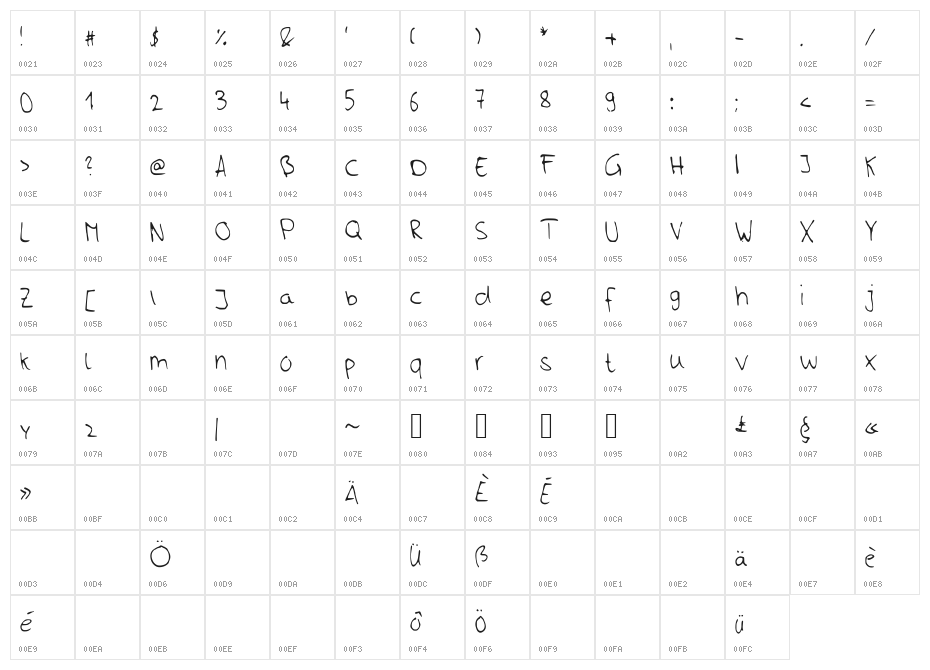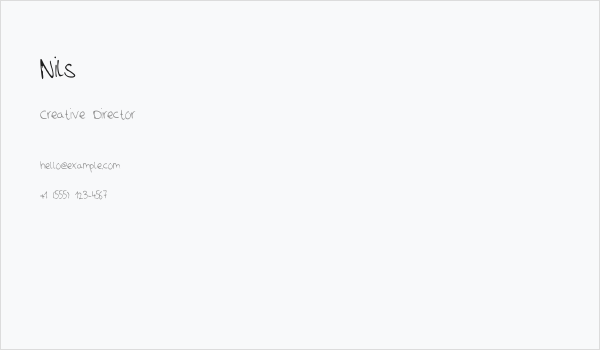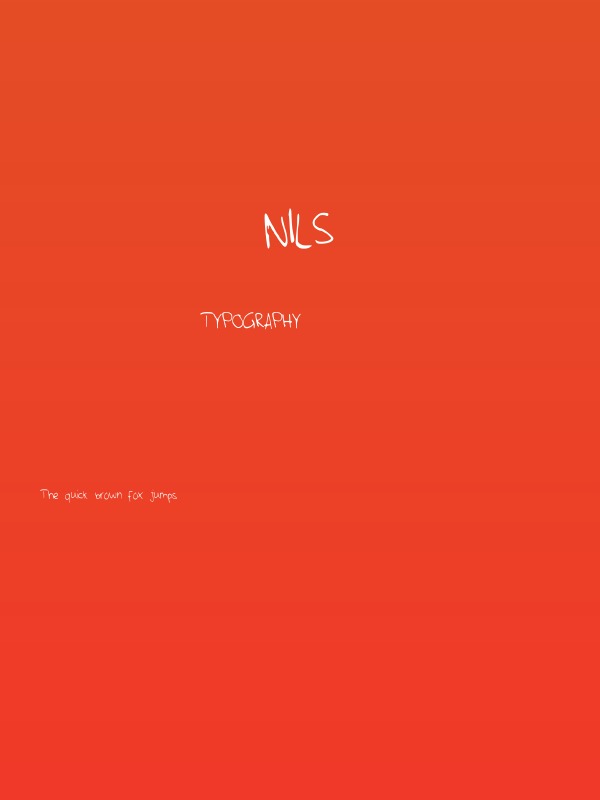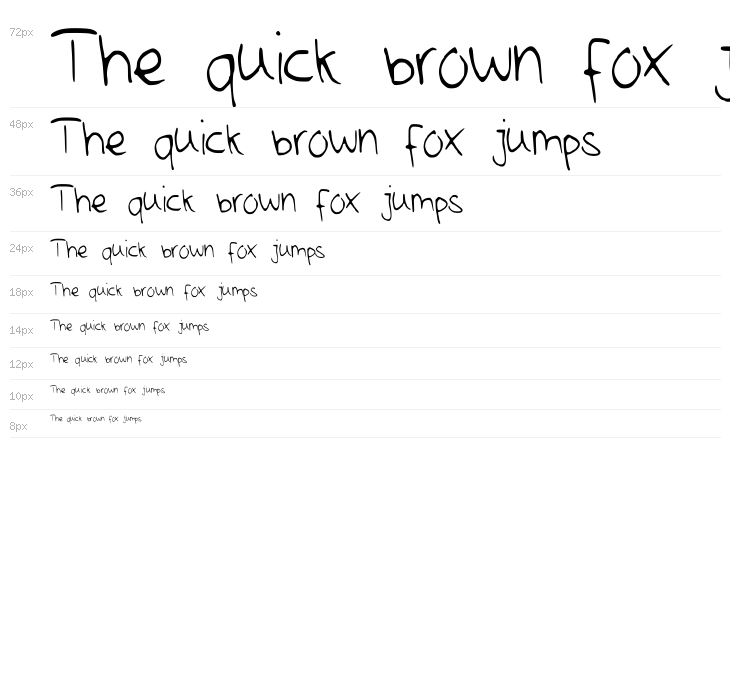
Nils Font
Nils Description
This font exhibits a playful and casual handwritten style, characterized by its irregular strokes and organic flow. The letters have a slightly uneven baseline, giving it a natural and informal appearance. The uppercase and lowercase letters maintain a consistent style, with rounded edges and varying stroke widths that add to its charm. The numerals and special characters follow the same handwritten aesthetic, making it suitable for projects that require a personal touch. The overall design is approachable and friendly, ideal for conveying warmth and creativity.
| Overall Style | Casual, Playful |
| Use Case | Headlines, Informal text, Creative projects |
| Proposed Projects | Ideal for greeting cards, personal invitations, children's books, and creative branding projects. |